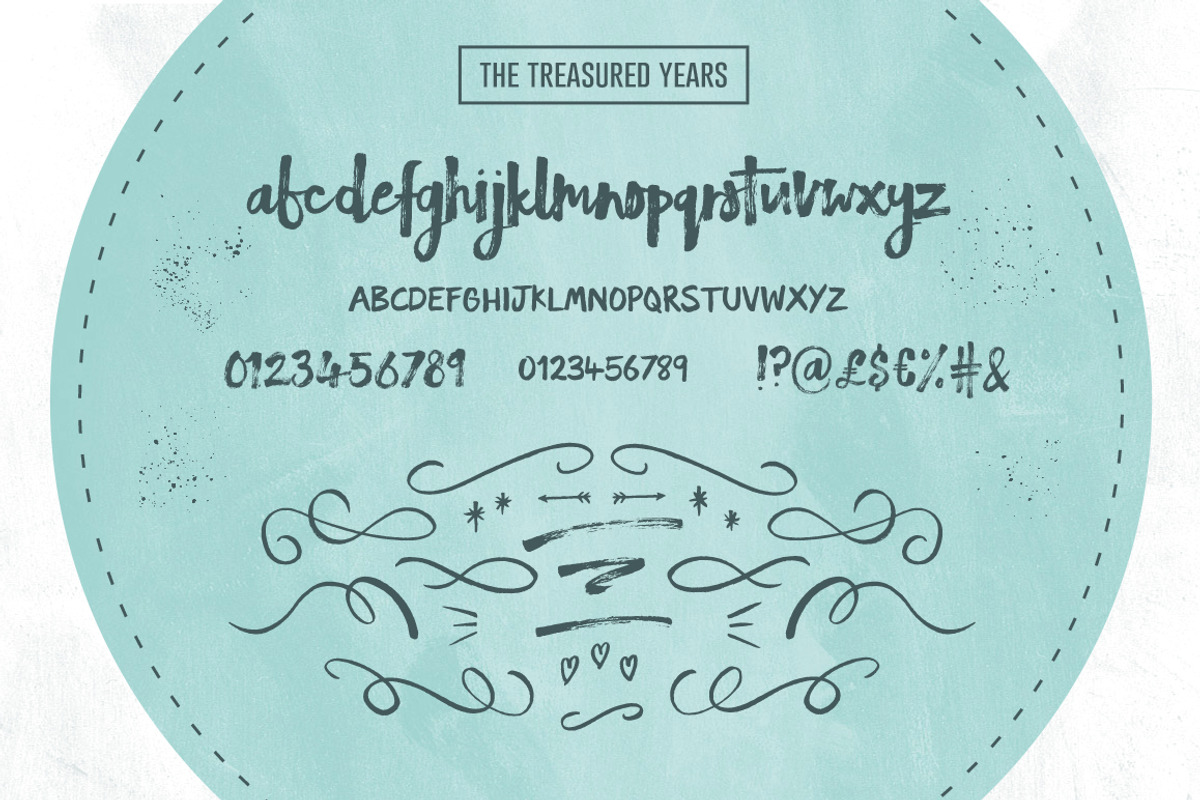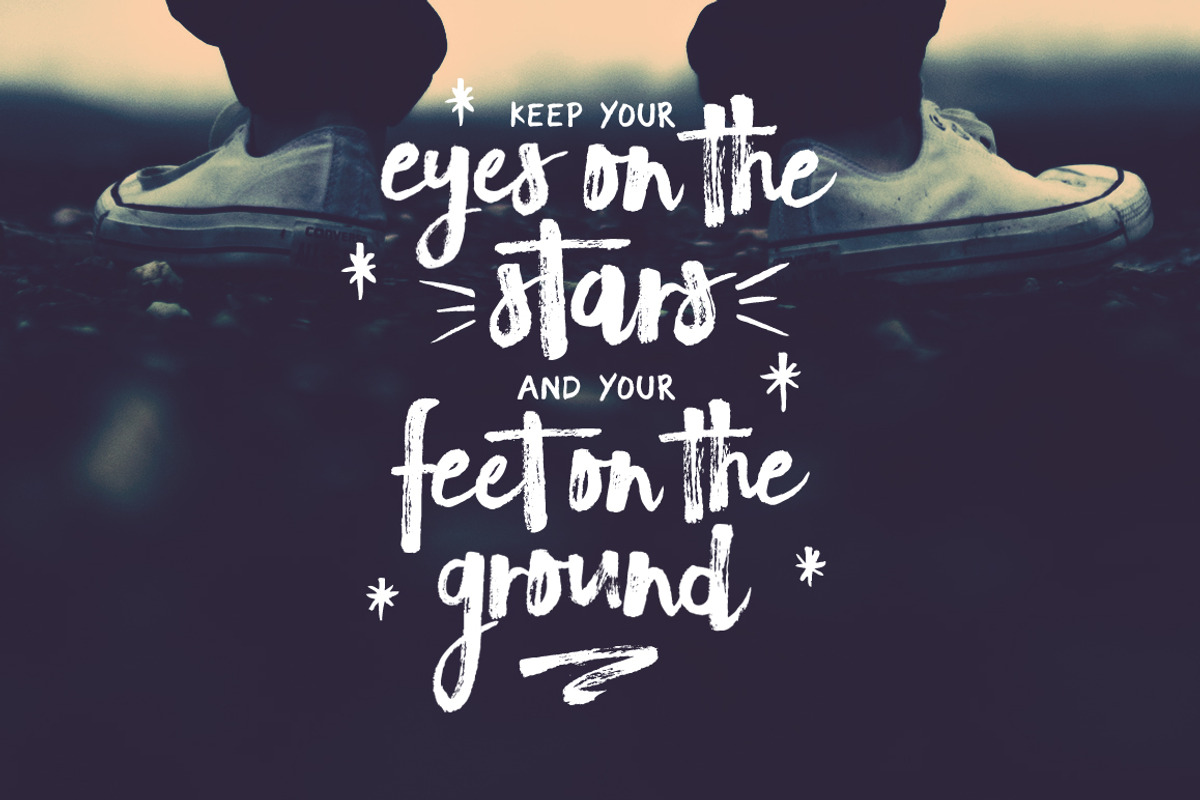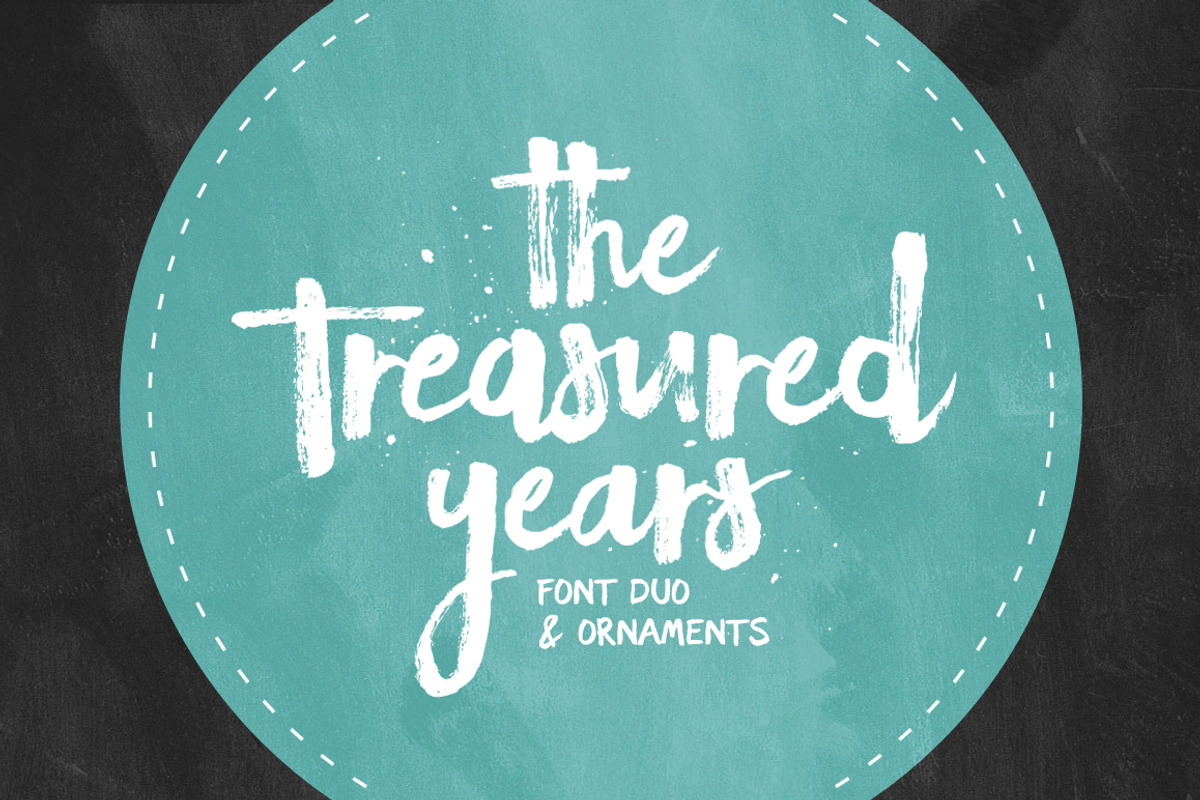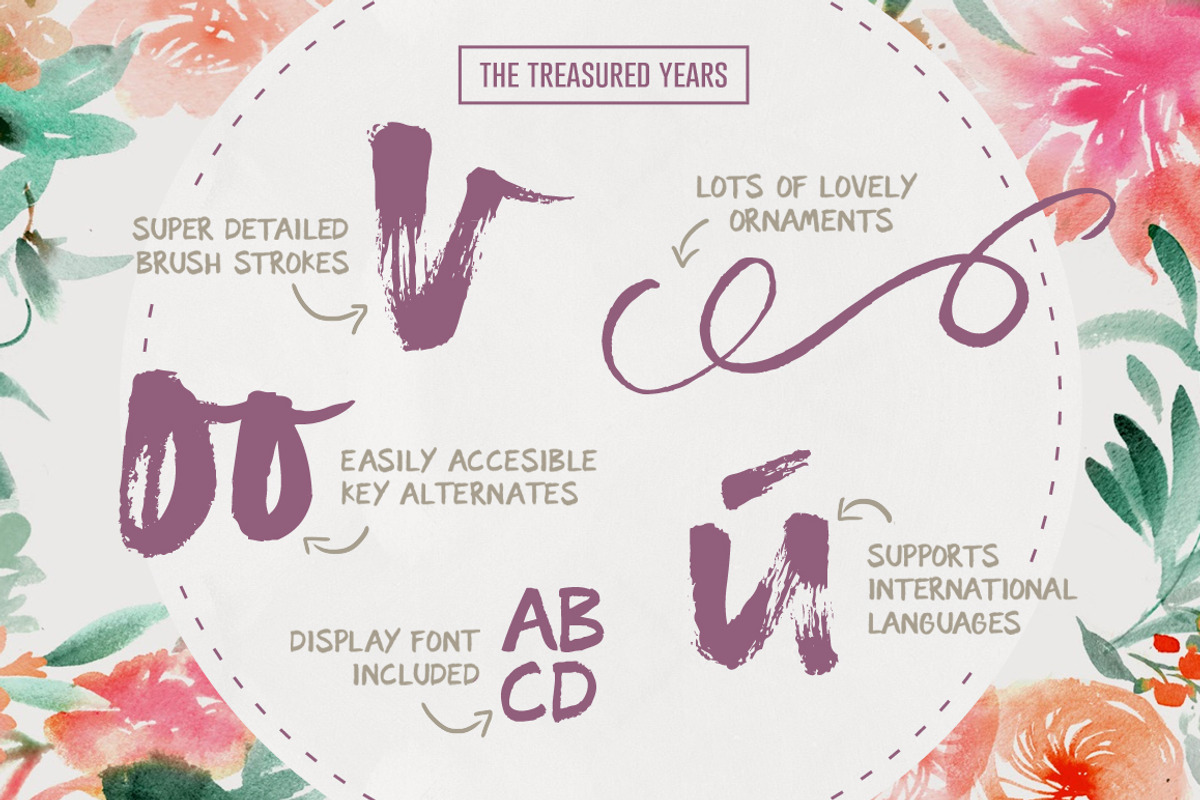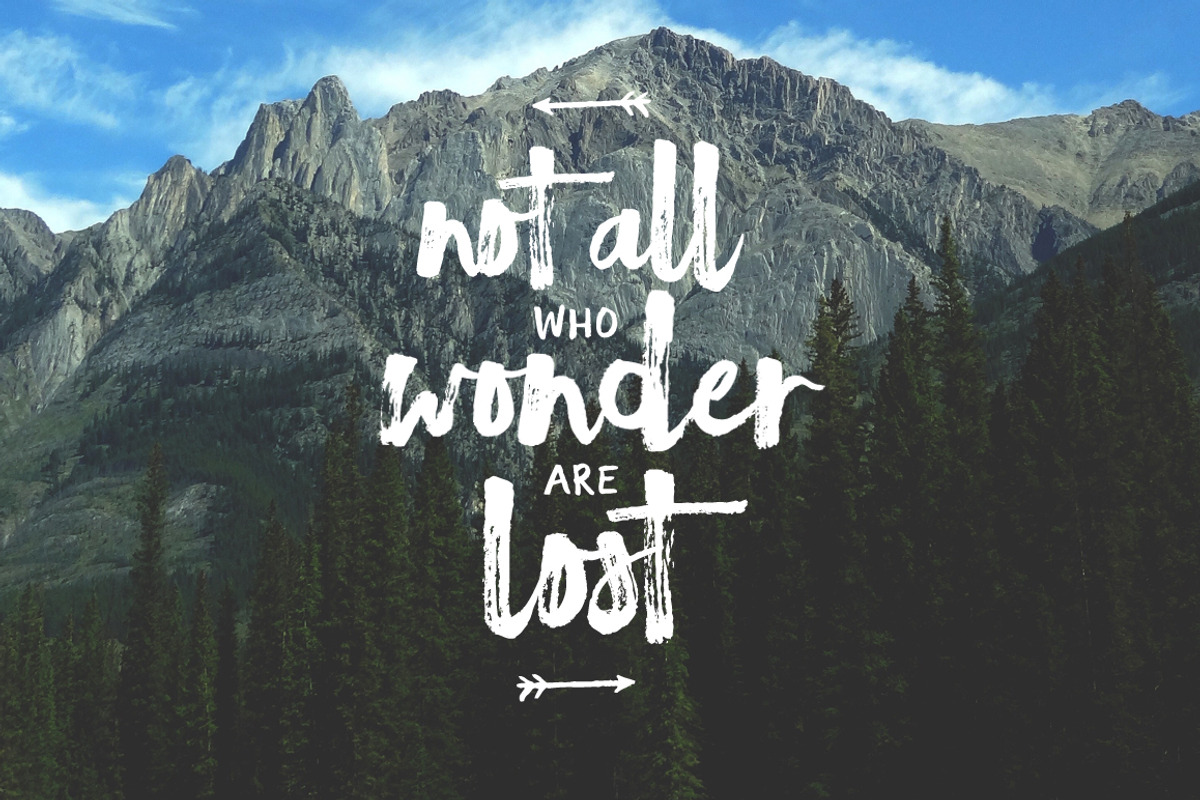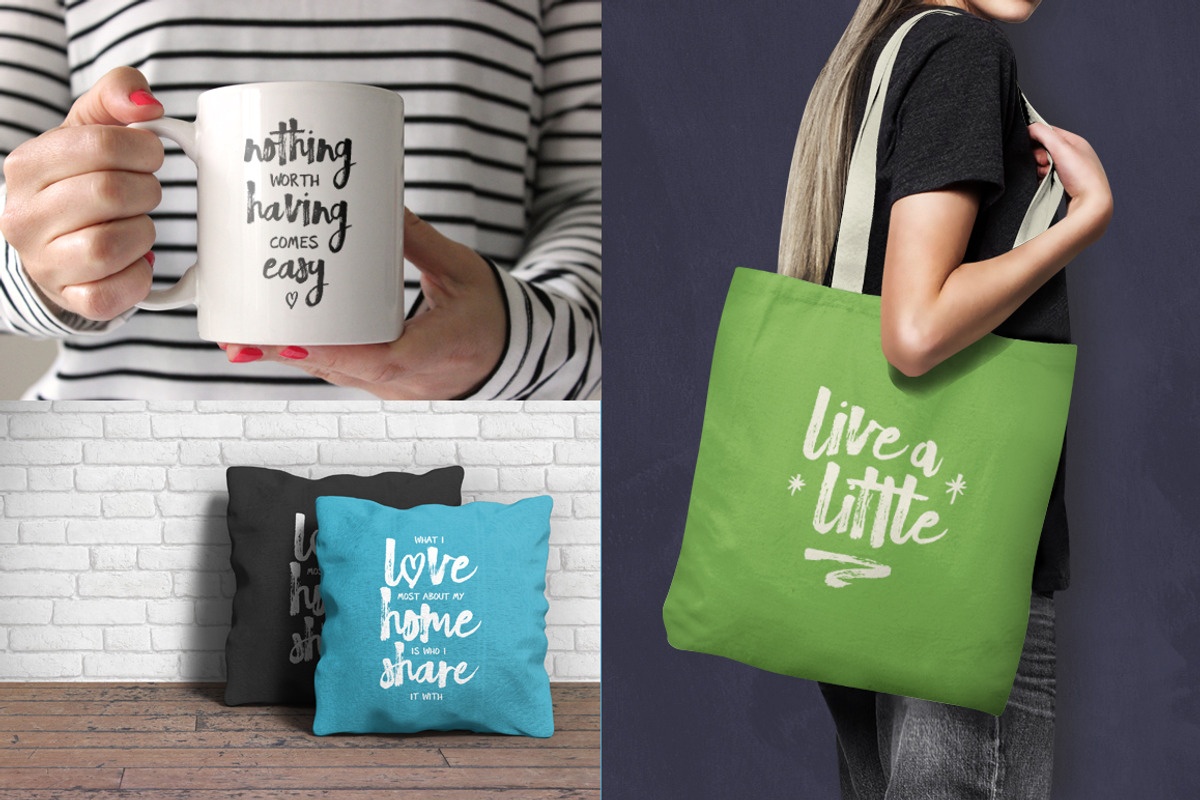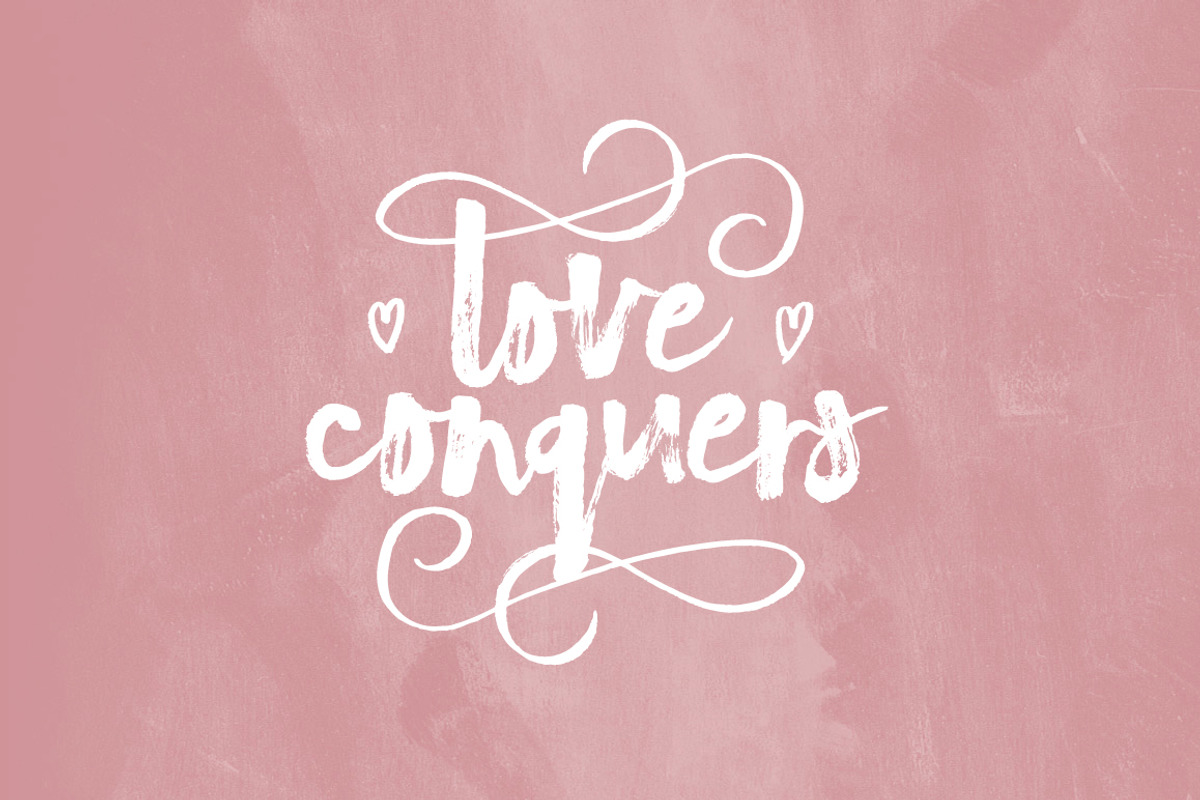
The Treasured Years Font Duo + Bonus
The Treasured Years Font Duo + Bonus by Sam Parrett is a font selected for branding, posters, packaging, typography.
- Also included is a set of 24 bonus ornaments, designed to give your text that extra touch of detail & attention.
- The Treasured Years Script is a set of lowercase characters which includes a large range of punctuation glyphs, numerals, and supports inter
- The Treasured Years Display is a supporting set of upper-case characters which includes basic punctuation, numerals, and supports internatio
- Also included is a set of 24 bonus ornaments, designed to give your text that extra touch of detail & attention.
- The Treasured Years Script is a set of lowercase characters which includes a large range of punctuation glyphs, numerals, and supports inter
- The Treasured Years Display is a supporting set of upper-case characters which includes basic punctuation, numerals, and supports internatio
- The Treasured Years Script is a set of lowercase characters which includes a large range of punctuation glyphs, numerals, and supports inter
- Stylistic alternates for several key characters are also available, you can access these simply by switching between upper & lower case glyp
- The Treasured Years Display is a supporting set of upper-case characters which includes basic punctuation, numerals, and supports internatio
Why The Treasured Years Font Duo + Bonus is worth a look
The Treasured Years Font Duo + Bonus by Sam Parrett fits naturally into Branding, posters, packaging, typography.